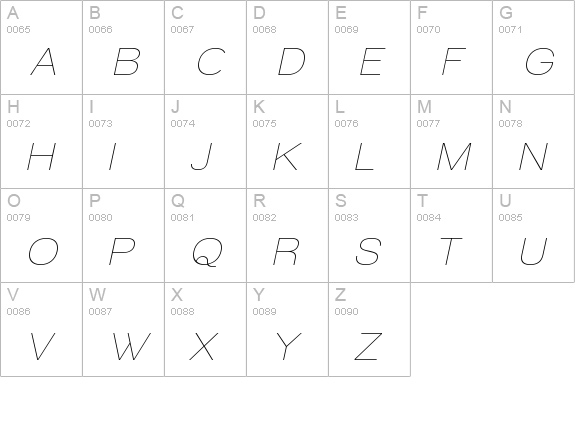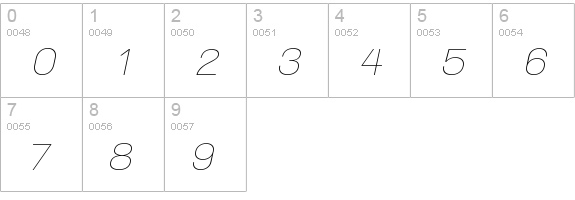
Walkway Oblique is a distinctive, italic variant in the Walkway typeface family \xE2\x80\x94 well suited to design and typography projects.
Walkway Oblique is a striking and versatile font that adds a touch of sophistication to any design project. With its sleek and slanted letterforms, it conveys a sense of forward motion and modernity. This font is perfect for creating eye-catching headlines, logos, and posters. The unique and dynamic nature of Walkway Oblique makes it a standout choice for both print and digital applications. Its clean lines and subtle curves give it a contemporary edge, while its oblique angle adds an interesting twist to the overall design. Whether you're designing a website, a magazine layout, or a promotional banner, this font will effortlessly enhance the visual appeal of your content. One of the best things about Walkway Oblique is that it is available for free download at FontsMarket.com. This means that you can easily obtain this stunning font and start using it in your projects right away, without any cost involved. FontsMarket.com is a trusted source for high-quality fonts, and their vast collection ensures that you'll find the perfect typeface for any creative endeavor. In addition to its aesthetic appeal, Walkway Oblique also offers excellent legibility, making it suitable for both headlines and body text. Its open letterforms and generous spacing ensure that each character stands out, while still maintaining a harmonious balance. This font is sure to captivate readers and leave a lasting impression. Whether you're a graphic designer, a web developer, or a creative professional looking to add a touch of elegance to your work, Walkway Oblique is a font that should not be overlooked. Its sleek and modern design, combined with its availability for free download at FontsMarket.com, makes it a must-have in any designer's toolkit. So why wait? Start using Walkway Oblique today and elevate your designs to new heights.